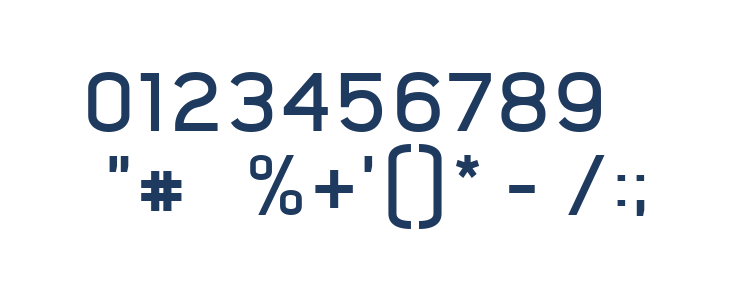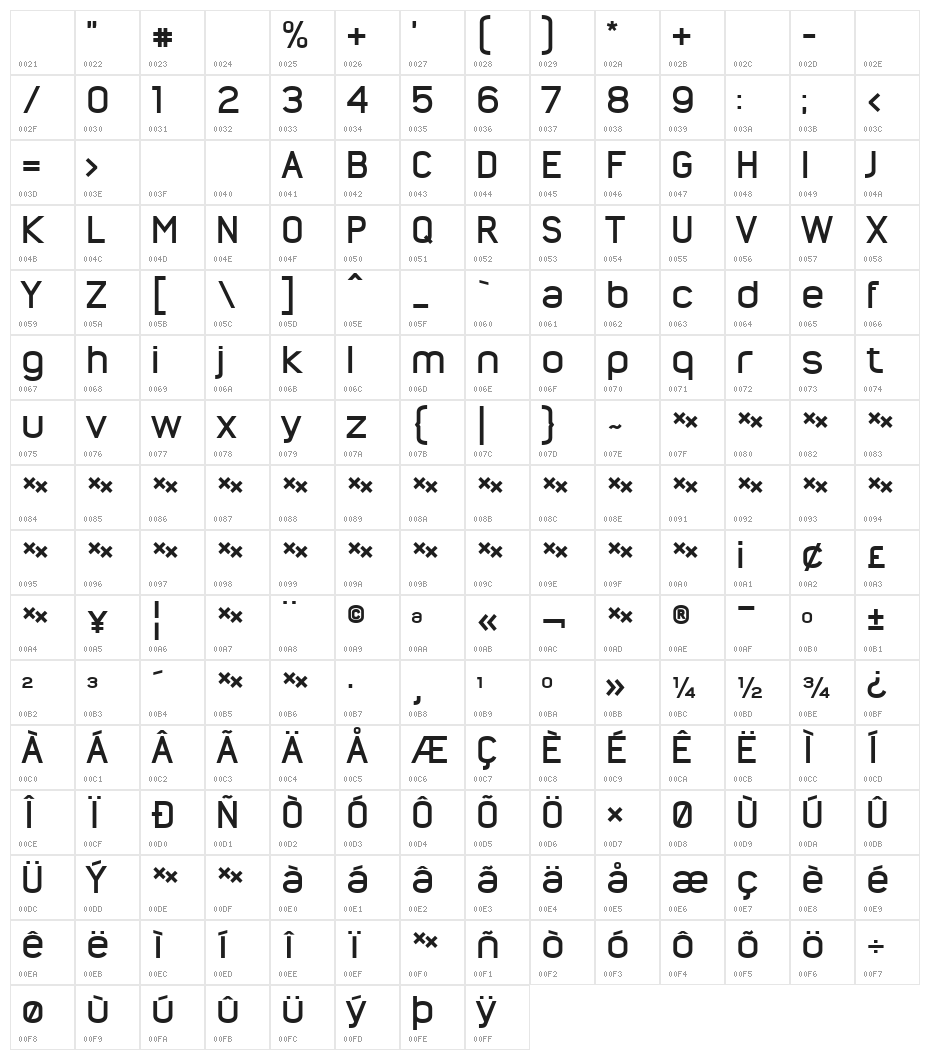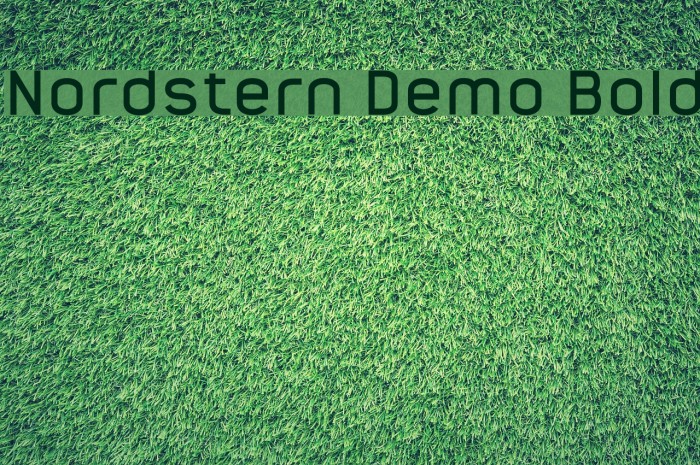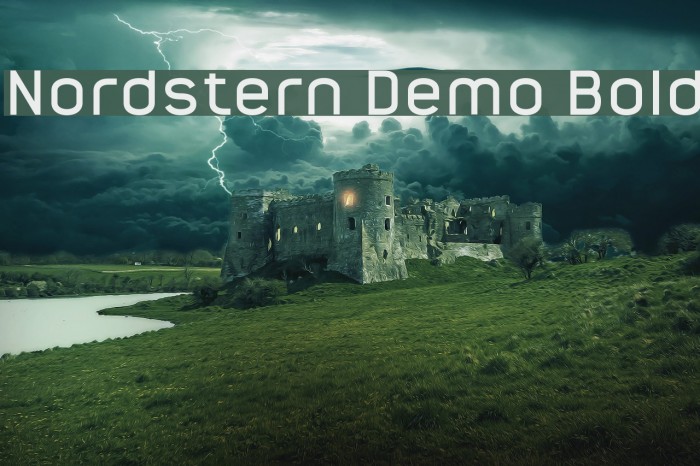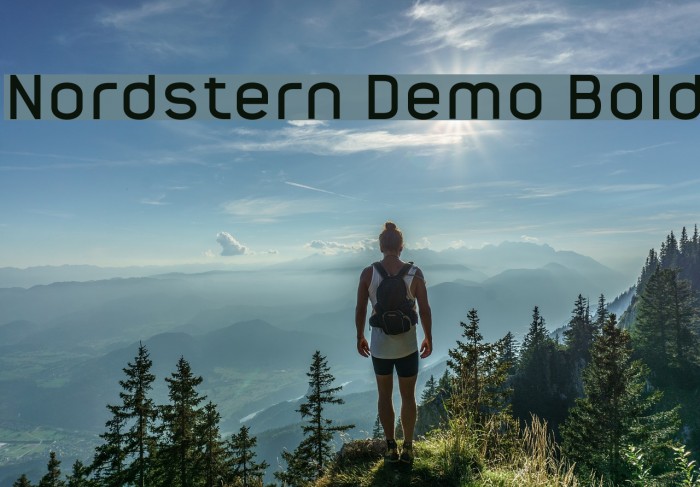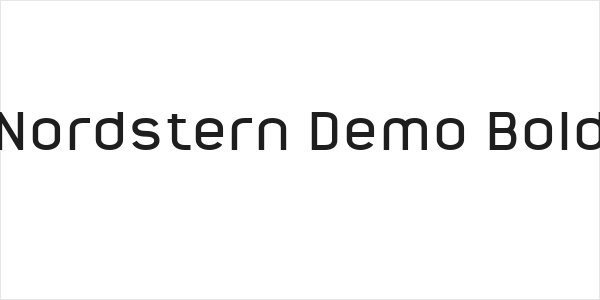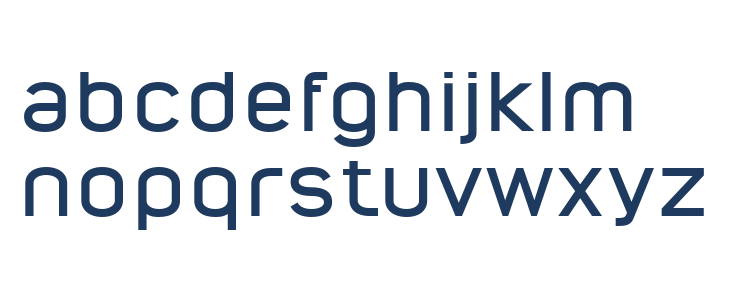
Nordstern Demo Bold Font
Nordstern Demo Bold Description
This font features a clean and modern sans-serif design with a bold weight. The characters are well-defined with a geometric structure, offering a sense of clarity and precision. The uppercase and lowercase letters maintain a consistent style, with rounded edges that soften the overall appearance. The numerals are equally balanced, ensuring readability. Special characters are included, enhancing its versatility for various applications. The font's uniform stroke width contributes to a harmonious and professional look, making it suitable for both digital and print media.
| Use Case | Headlines, Logos, Digital interfaces |
| Proposed Projects | Ideal for branding, signage, digital interfaces, and editorial design. |